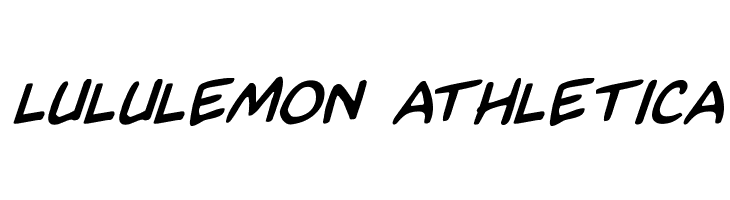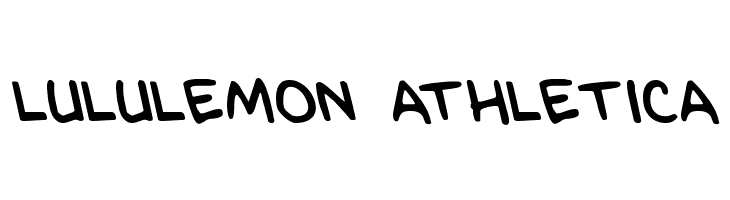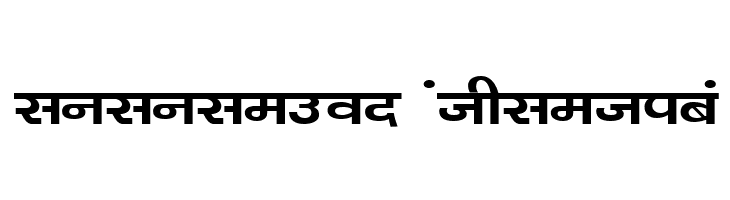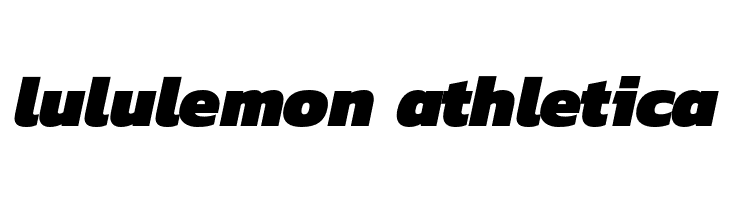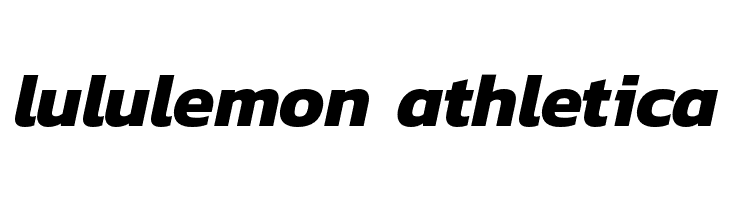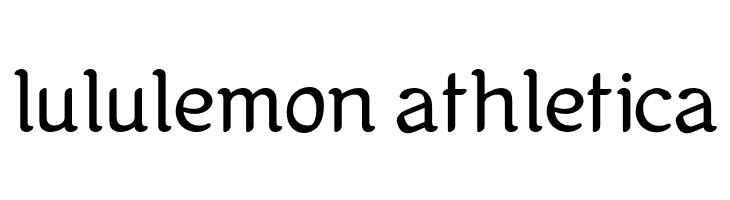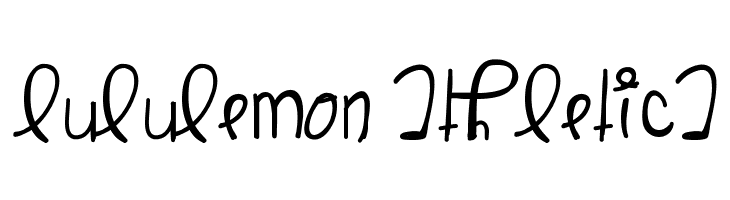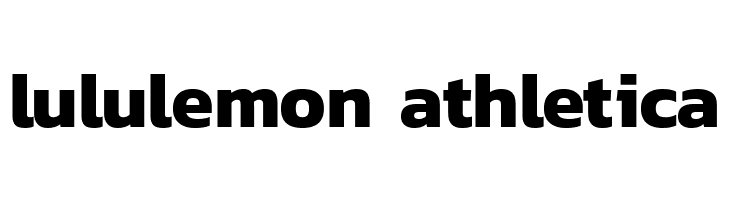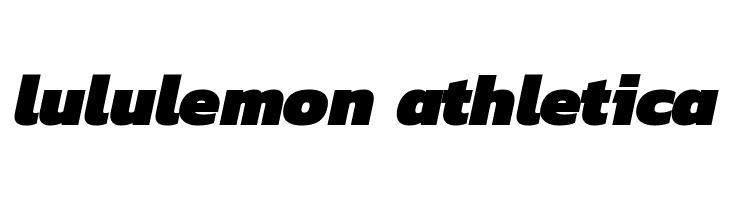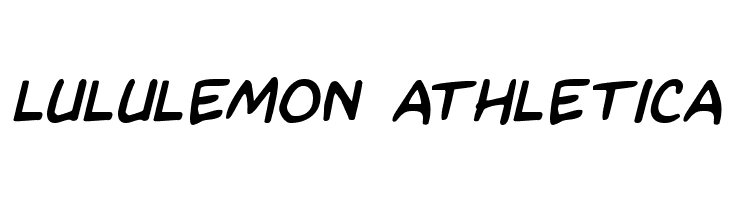
A playful, handwritten-style font with bold, rounded strokes and a condensed, italicized form.
A playful, hand-drawn font with rounded edges and a whimsical style.
A playful, bold handwritten font with rounded edges and a casual style.
A playful, handwritten-style font with bold, rounded strokes and an italicized, expanded appearance.
A bold, expanded, and italicized font with a playful and dynamic style.
A playful, handwritten italic font with bold, rounded strokes.
A playful, handwritten font with bold, rounded strokes and a casual, dynamic style.
A playful, handwritten font with a bold, rounded style and slight leftward slant.
A playful, handwritten font with a bold and casual style.
A playful, handwritten font with bold, rounded characters.
A bold, italicized font with a dynamic and energetic style.
A bold, italic script font with dynamic and fluid letterforms.
A playful, handwritten-style font with bold, rounded characters.
A bold, handwritten font with a playful and dynamic style.
A bold, playful font with rounded edges and a geometric structure.
A bold, modern font with geometric and rounded elements for a dynamic look.
A bold, italic font with a dynamic and modern style.
A bold, italic font with a modern, dynamic style and smooth curves.
A playful, whimsical handwritten font with bold, dynamic strokes.
A bold, italic script font with dynamic strokes and sharp edges.
A bold, dynamic font with angular and curved elements, ideal for decorative use.
A bold, rounded font with a playful yet professional style.
A fluid, cursive script font with elegant, connected characters.
A playful, rounded font with smooth curves and a modern-retro style.
A playful, rounded font with consistent stroke width and a modern-retro vibe.
A bold, angular font with a futuristic and geometric style.
A modern, geometric sans-serif font with a clean and versatile design.
A bold, geometric font with a modern and cohesive design.
A bold, italicized font with a modern and dynamic style.
A bold, italicized font with a dynamic and modern style.
A bold, modern sans-serif font with clean lines and a strong presence.
A bold, italicized typeface with a modern and dynamic style.
A bold, italicized font with a modern and dynamic style.